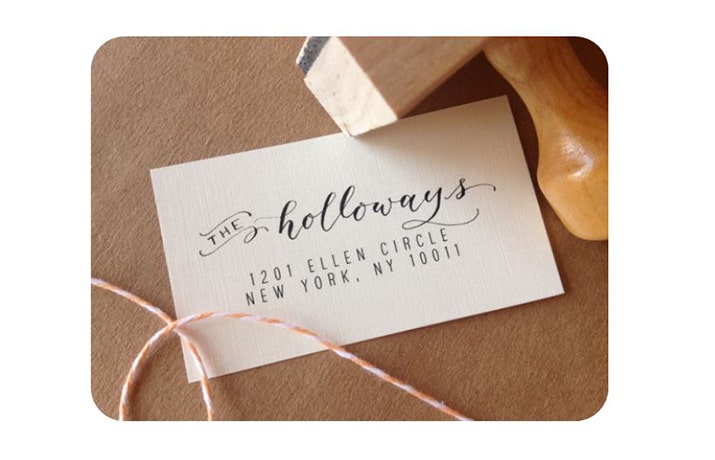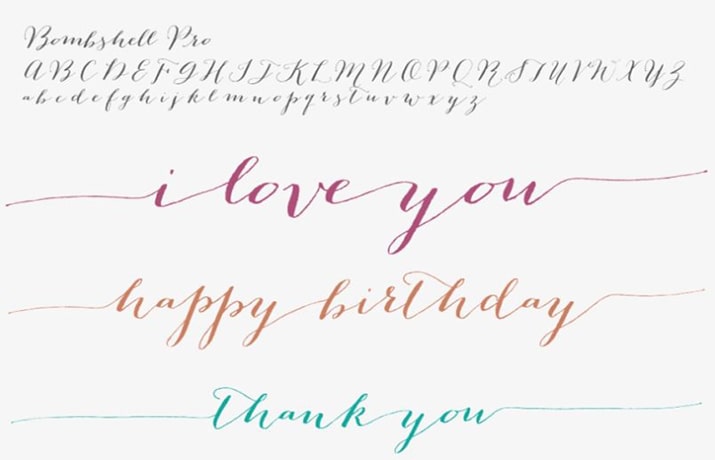
Bombshell Pro is an elegant calligraphy typeface that includes long strokes between letters so you can create beautiful headlines or signature shapes.
This typeface was firstly released over the TrueType format by a female font designer Emily Conners on 15 May 2012.
It’s a unique cursive typeface that features long lines between letters. So you can create stunning titles or signatures with its help.
All text forms, including a beautiful and attractive layout. Working Emily has likewise taken great care to convey a high level of competence, whether in a logo or a fashion brand.
It has an attractive shape and unique features. You can use this great quality font for logo design, book composing, posters advertising, and creating titles.
Printing items, brochure layouts, wedding cards, invitations, official card designs, flyers, cards, and many other destinations.
It comes in a single regular style. And this font includes awesome glyphs, terminal characters, alternates, as well as Roman numerals.
Thus, all these features help to make the design tasteful and sexy. As you can see in the images about Bombshell Pro font structure.